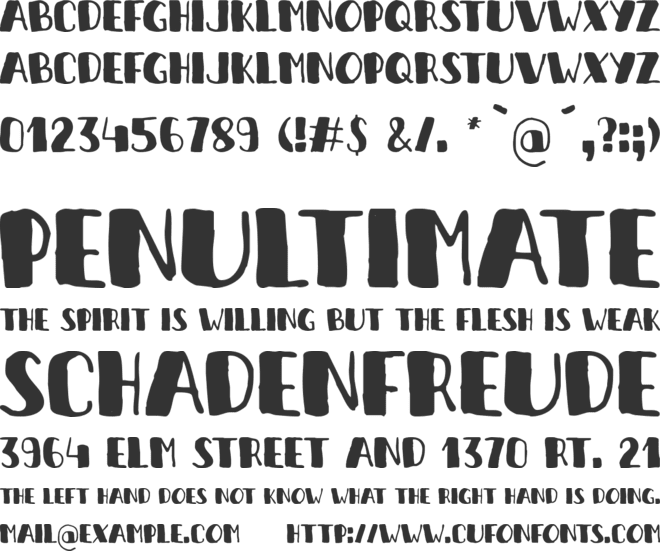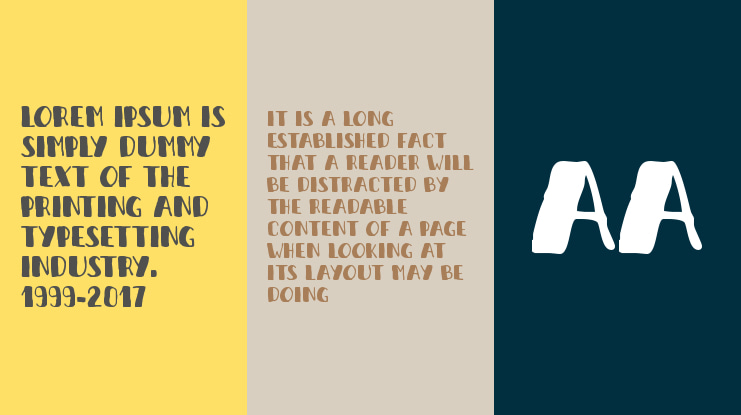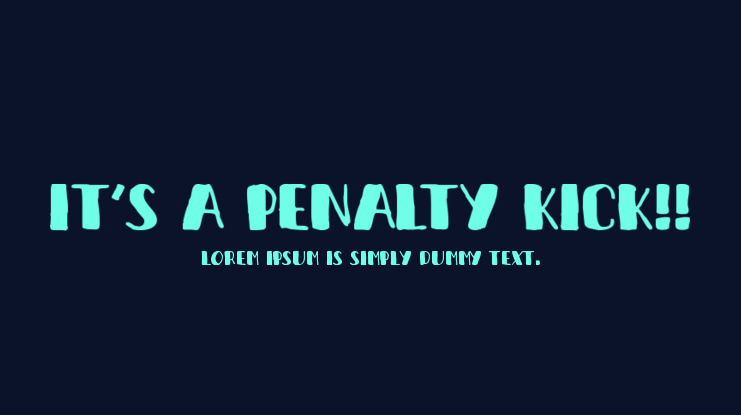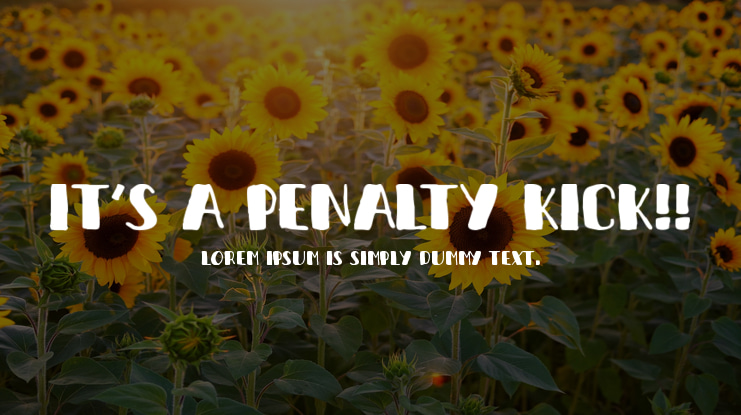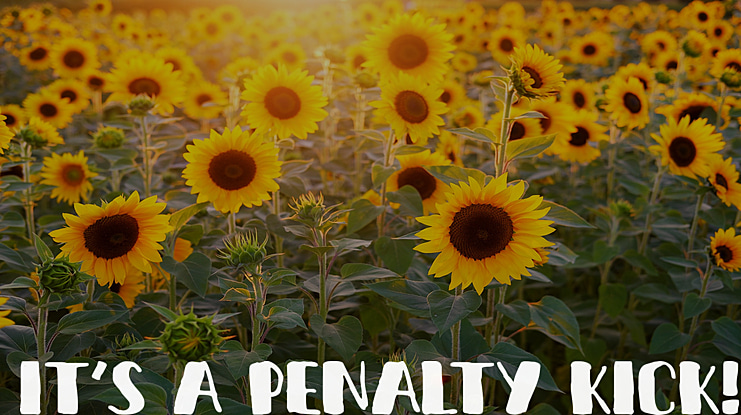
It's a penalty kick!! Font
Frédéric Rich
IT'S A PENALTY KICK!! has been designed using a black pen, white paper, a scanner, and patience.
The picture on the preview has been taken by an AFP journalist during the 1974 FIFA World Cup Final, between the Netherlands and West Germany. Johan Neeskens beats Sepp Maier and gives the Dutch the lead. West Germany will score two goals to finally win this game.